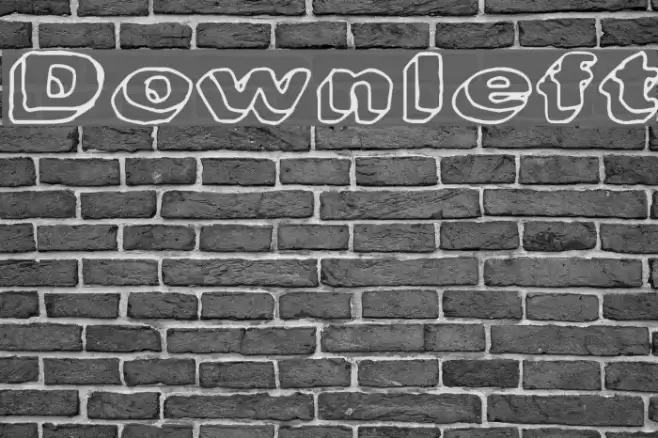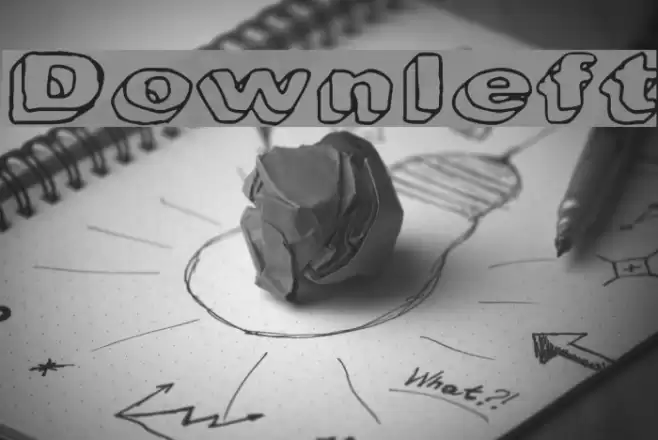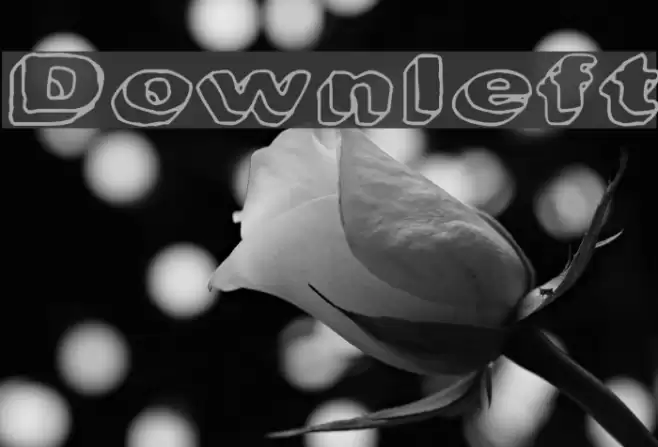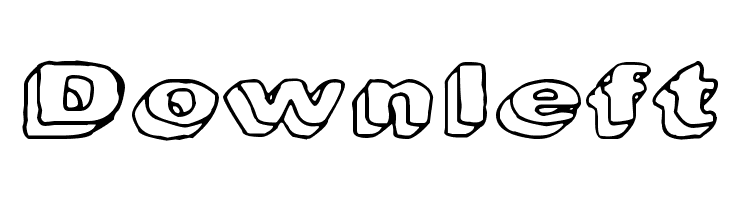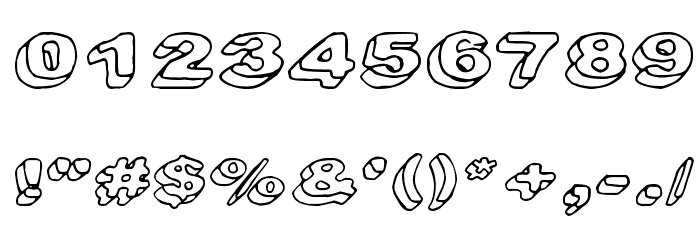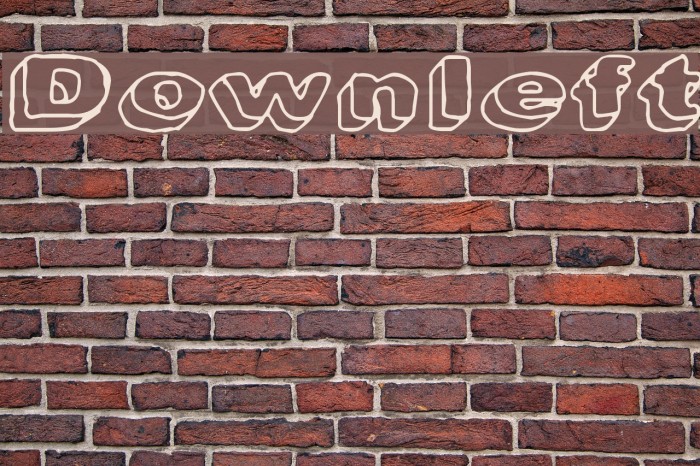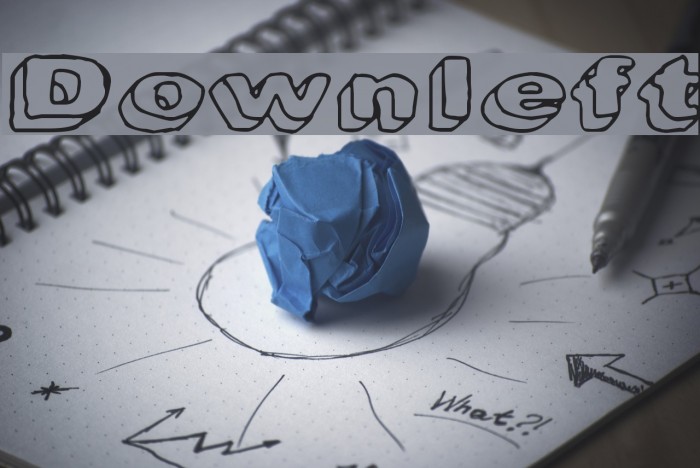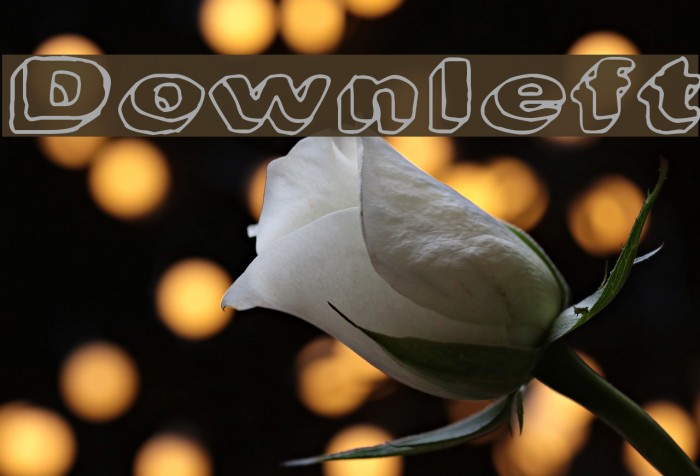
This font features a playful and bold 3D outline style, giving each character a sense of depth and dimension. The letters are uppercase and lowercase, with a consistent thickness that maintains readability while adding a fun, cartoonish feel. The numbers and special characters follow the same design, ensuring a cohesive look across all elements. The font's unique style makes it ideal for projects that require a lively and engaging appearance.
A playful 3D outline font with a bold, cartoonish style from Uncategorized fonts.
- Proposed Projects: Ideal for children's books, comic titles, playful branding, and eye-catching posters.
- Overall Style: Playful, Cartoonish